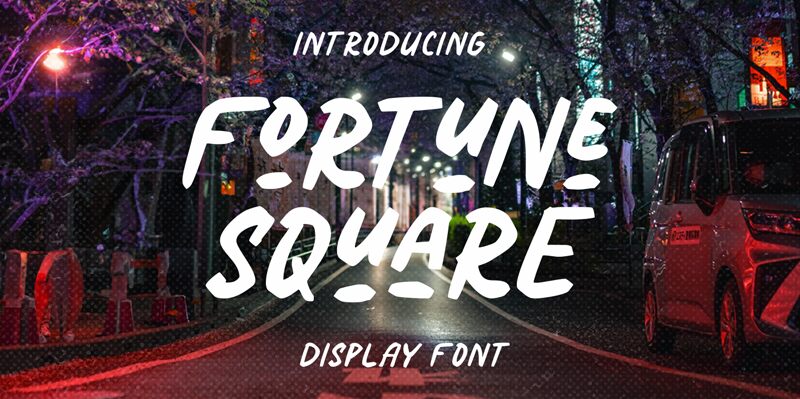
Fortune Square font is a stunning display script created by Letterhend Studio. A fascinating brush typeface with expressive, bold characters that carry a geometric visual language. Fortune Square follows energetic letter construction, casual appearance, and an artistic flair that supports the powerful visual impact it presents.
A perfect free font for poster designs, album covers, headlines, branding elements in logos or packaging… this beauty can do them all! Use it in advertising as well for stunning billboards and magazine ads.